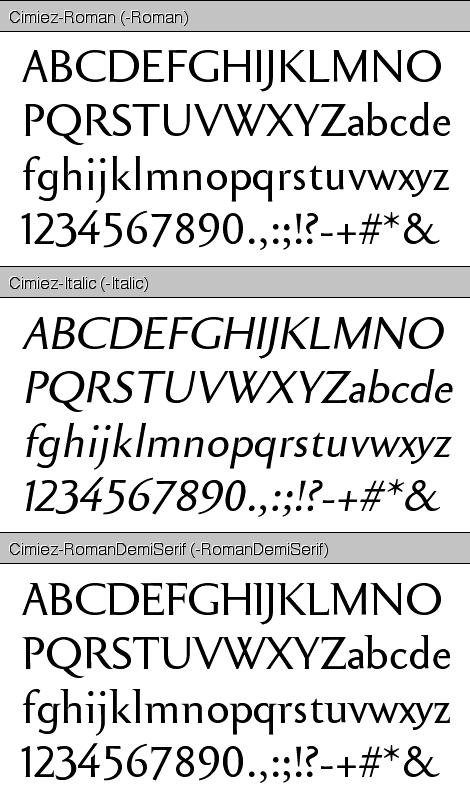
Cimiez Roman Set (3 typefaces) (Wiescher Design)
Classical nineteenth century french engravers typeface, traditional with corners sharpened, a flick of the burin and a touch of Art Deco.FONTHAUS END USER LICENSE AGREEMENT